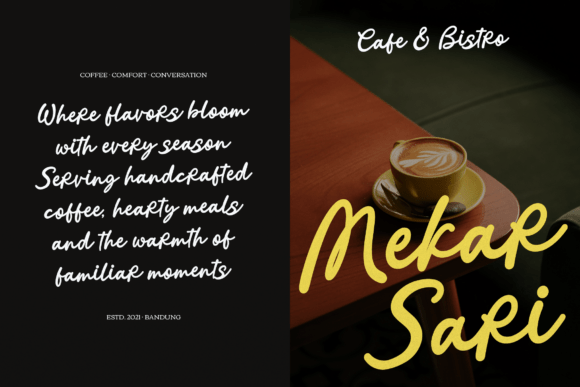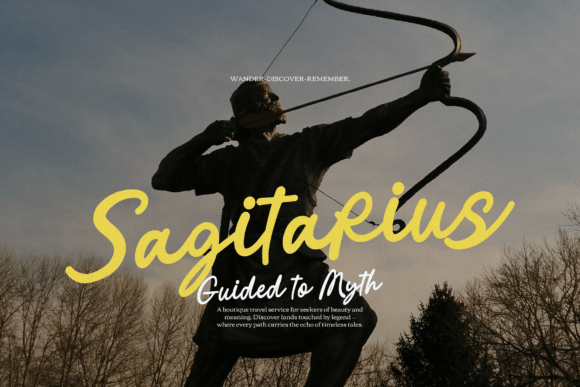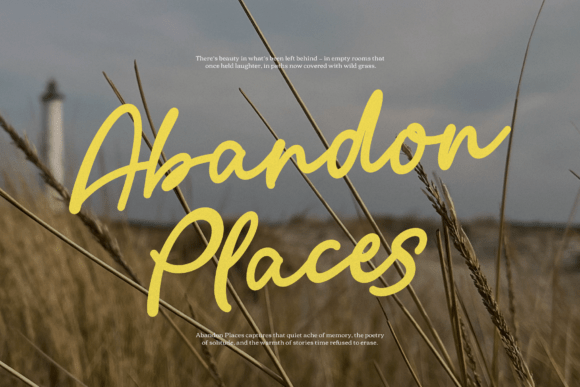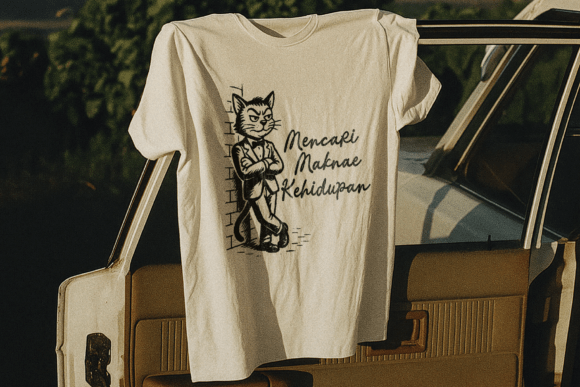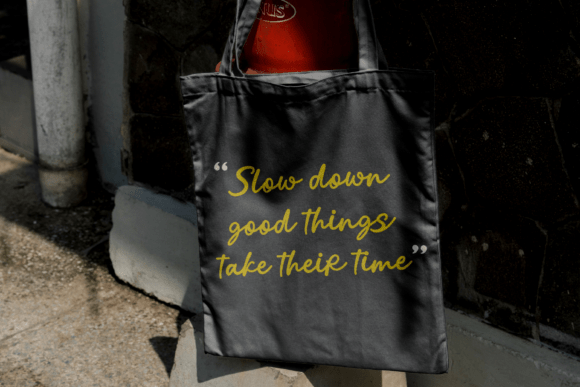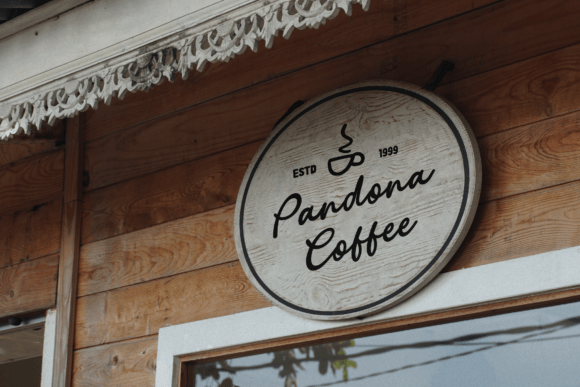
Introduction to Recordo Cinema Font
Have you ever stumbled upon a vintage movie poster in a dusty old thrift store, and suddenly you’re transported back to a bygone era of neon lights, classic cars, and carefree summers? That’s the magic of Recordo Cinema Font, a lively retro script font that perfectly captures the essence of mid-century hand-lettering and vintage movie posters.
As designers, we’re always on the lookout for that special something that adds a touch of authenticity to our creative projects. And that’s exactly what Recordo Cinema Font delivers – a smooth, bouncy baseline, slightly thickened, brush-style strokes, and a playful, effortless flow that suggests movement and good times. With its bold yellow color and high-quality design, this font is the perfect choice for designers who want to add a dash of nostalgia and fun to their work.
Key Features of Recordo Cinema Font
- Recordo Cinema Font is available in 5 font styles, including bold, italic, and regular variations, providing ample options for creative expression.
- Unique characteristics include ornate details and a vintage flair, making it an excellent choice for projects requiring a touch of sophistication and elegance.
Honest Review: Recordo Cinema Font
I recently stumbled upon the Recordo Cinema Font and was eager to give it a try in my latest design project. As a designer, I’m always on the lookout for high-quality resources that can elevate my work.
Here are some things that worked well for me:
- ✨ High-quality font with a unique, vintage aesthetic that’s perfect for creative projects.
- ⚠️ Limited character set, which may not be ideal for extended text-based projects.
Overall, I’m impressed with the Recordo Cinema Font, but it’s essential to be aware of its limitations. As a design resource, it excels in specific contexts, such as adding a touch of nostalgia to a design or creating a unique visual identity. If you’re looking for a high-quality, free font for a creative project, Recordo Cinema Font is definitely worth considering.
Recordo Cinema Font is commonly used for creating movie posters, advertisements, and other visual materials that require a touch of sophistication and elegance. It’s also ideal for creating luxury brand materials, such as logos and packaging designs.
Tips for Getting the Most Out of Recordo Cinema Font
To get the most out of Recordo Cinema Font, use it in conjunction with other high-quality design resources, such as graphics and images. Experiment with different font sizes, colors, and arrangements to create unique and eye-catching designs.